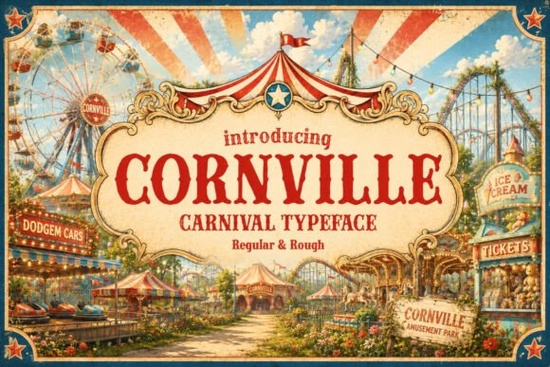
If you’ve ever wanted your designs to feel like they just stepped off the midway at a summer fair complete with cotton candy, bright banners, and hand-painted signs you’ll want to take a closer look at Cornville Font. It’s not just another display typeface. It’s got personality: bold, cheerful, and just a little bit weathered around the edges, depending on which version you choose. Whether you’re making birthday invites, market stall signage, or packaging for homemade jams, Cornville brings that nostalgic carnival charm without looking forced or overly trendy.
What makes it especially handy is that you get two distinct styles in one download. The Cornville Regular version gives you clean, confident letterforms great for logos or anything where readability matters but you still want that festive flair. Then there’s Cornville Rough, which adds subtle texture and imperfections, like letters baked by the sun and worn by time. It’s perfect when you need something that feels handmade, authentic, and full of character.
Who actually uses this kind of font?
You don’t need to be running a county fair to make good use of Cornville. Small business owners creating product labels for farmers’ markets? Check. Etsy sellers designing printable party kits? Double check. Teachers making classroom posters or event planners crafting ticket stubs? Absolutely. Even if you’re just someone who loves adding a little whimsy to personal projects like scrapbooks or custom greeting cards this font fits right in.
It works especially well for:
- Birthday party invitations (think balloon animals and cake smash themes)
- Festival and fair posters (local events, school carnivals, street fairs)
- Handmade product packaging (soaps, candles, preserves, baked goods)
- Event tickets and wristbands (adds instant “you’re going somewhere fun” energy)
- Branding for seasonal pop-ups or food trucks (makes your name memorable)
How does it compare to other playful serif fonts?
If you’ve browsed Creative Fabrica’s collection before, you might already know Belvoria another friendly serif with vintage charm, though more elegant and less carnival-inspired. Or maybe you’ve used Intellecta Typewriter for that retro office vibe. Cornville doesn’t try to do what those fonts do. Instead, it leans into celebration, noise, color, and movement. Think less library, more Ferris wheel.
For something smoother but still classic, Linneva offers clean lines and timeless appeal but again, without the playful bounce Cornville delivers. And if you’re exploring more options in the same family, don’t miss Cornville Font’s own page for pairing suggestions and mockups.
Any tips for getting the most out of Cornville?
A few small tricks help you make the most of its personality:
- Pair it wisely. Cornville shines as a headline font. For body text or smaller details, pair it with a simple sans-serif like Montserrat or Lato to keep things readable.
- Use color boldly. Bright reds, yellows, and blues enhance its carnival roots. Don’t be afraid to layer shadows or outlines for extra pop.
- Try Cornville Rough for texture-heavy designs. It looks especially great over photos of wood, burlap, or chalkboard backgrounds.
- Scale it up. This font was made to be seen. Tiny sizes lose some of its charm, so save it for titles, headers, or large-format prints.